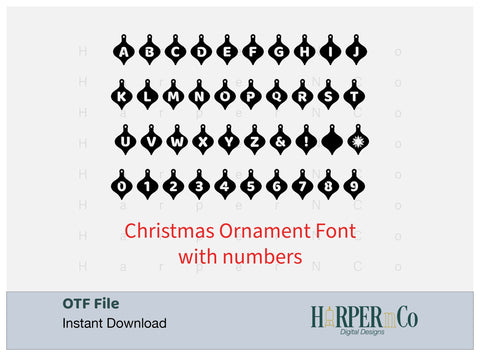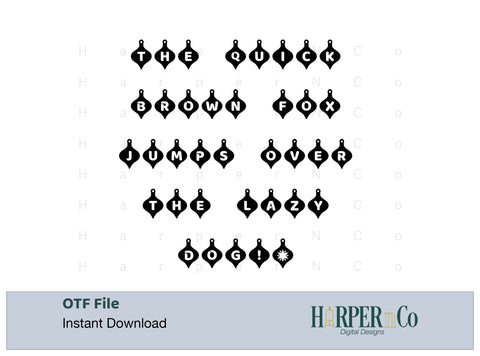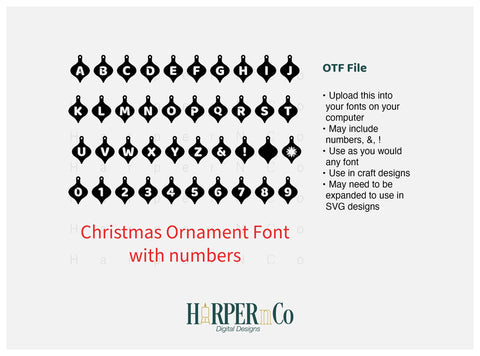
Christmas Ornament Font, Christmas Font, Playful Craft Font, Mini Font Set, OTF File
This font will be perfect for all your Craft projects! Use it to make custom shirts, keychains, valentines, tags, bags, and whatever else you can think of!